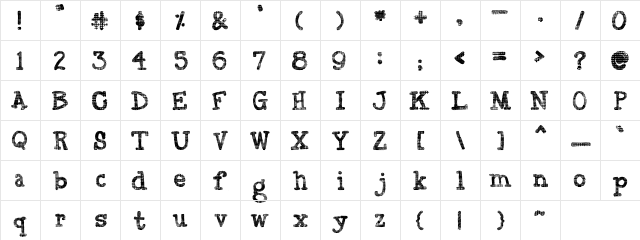
PC Burlap Regular
Design Context for PC Burlap Typeface
PC Burlap is a composed and adaptable typeface that performs quietly and consistently across a wide range of design contexts.